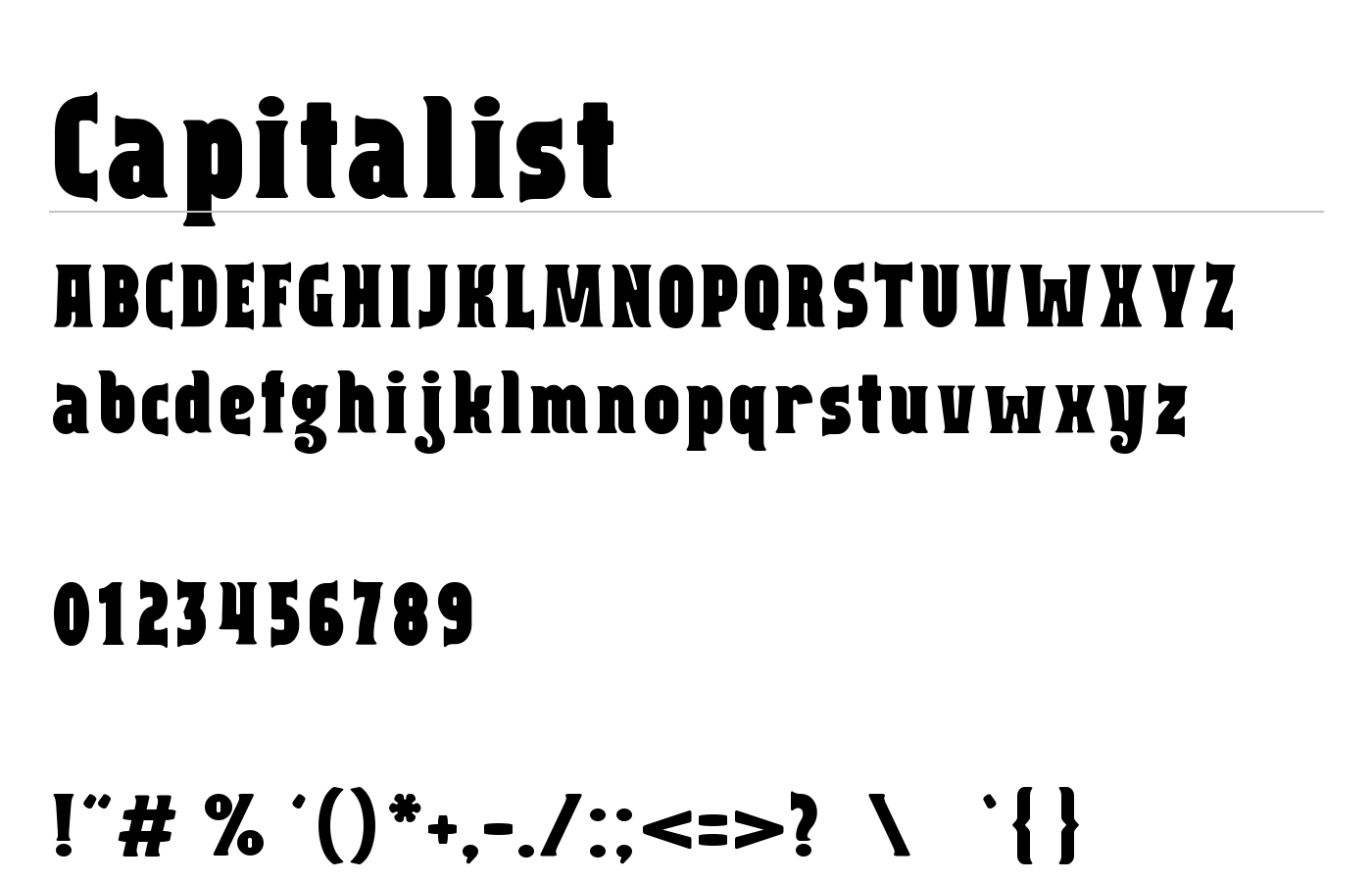
Capitalist Font is a bold, slab serif typeface with a strong, vintage feel, featuring thick, blocky letterforms with subtle curves and sharp edges that create a sturdy, confident look. Its high contrast and distinctive serifs make it perfect for impactful headlines, logos, and branding projects that want to convey strength and character with a touch of classic style. This font works well in designs needing a bold statement, especially in retro-themed or rugged visuals.
Capitalist Font